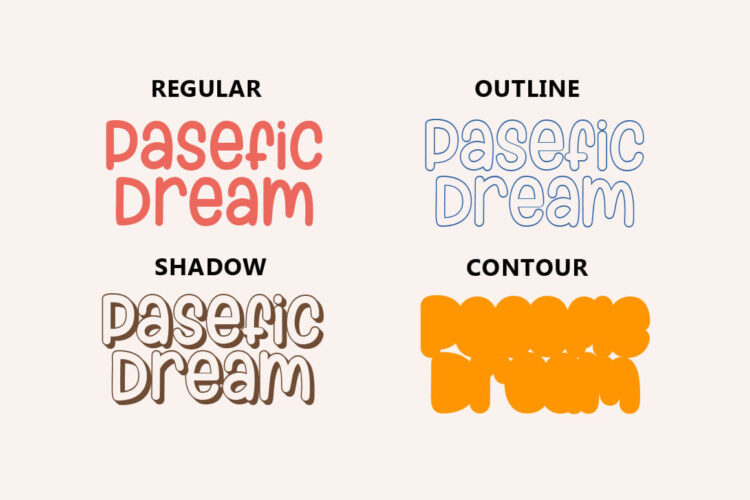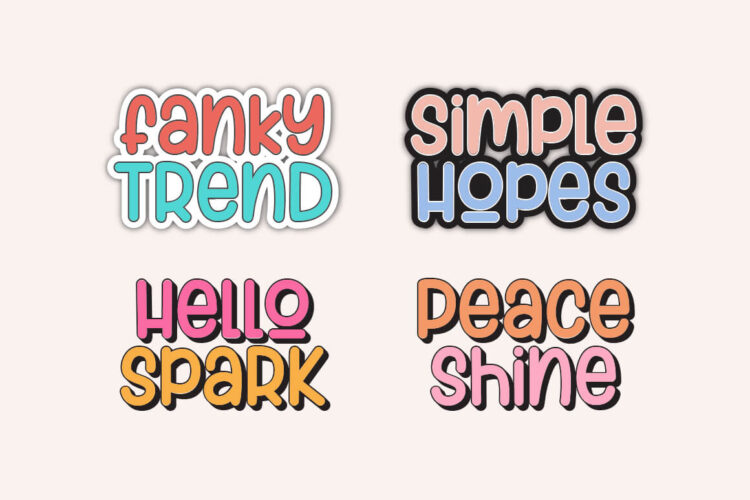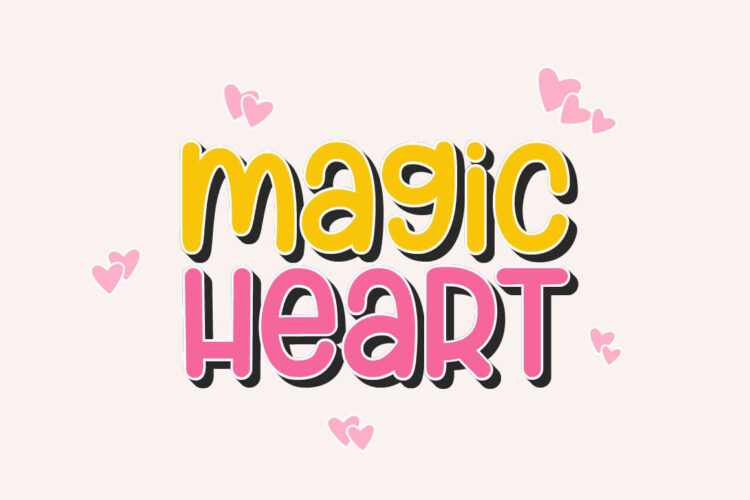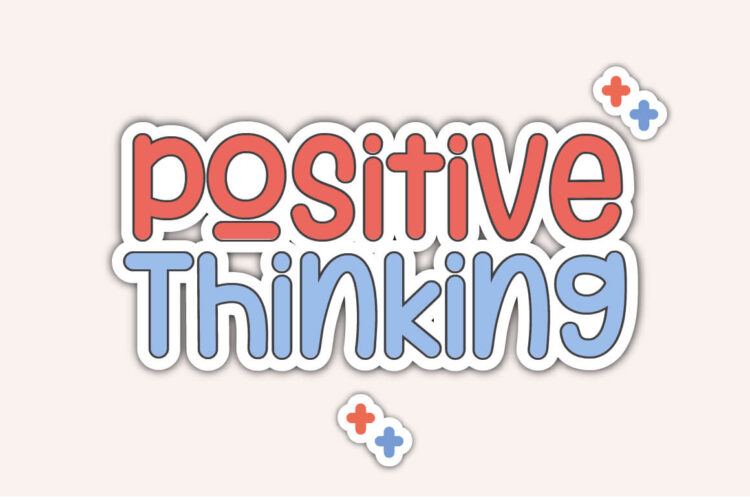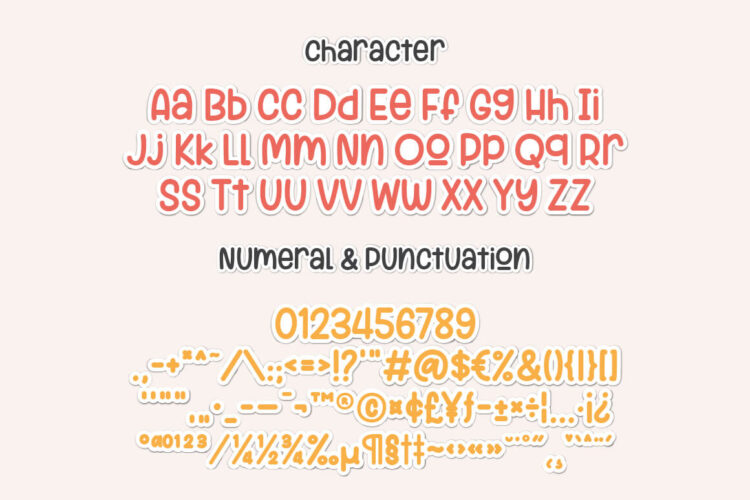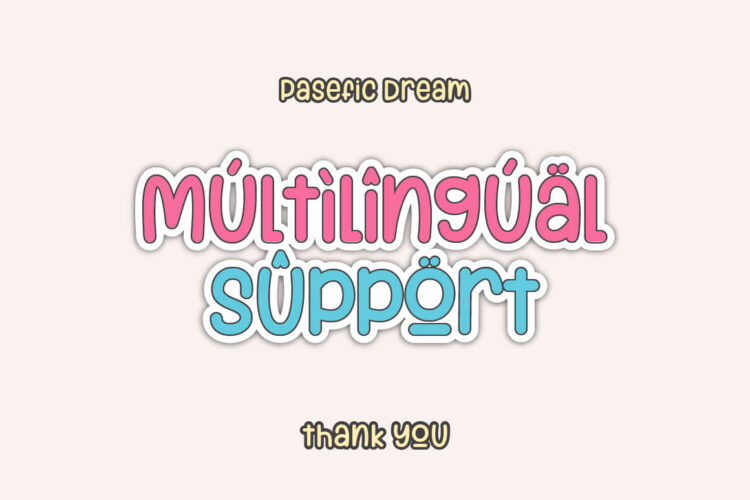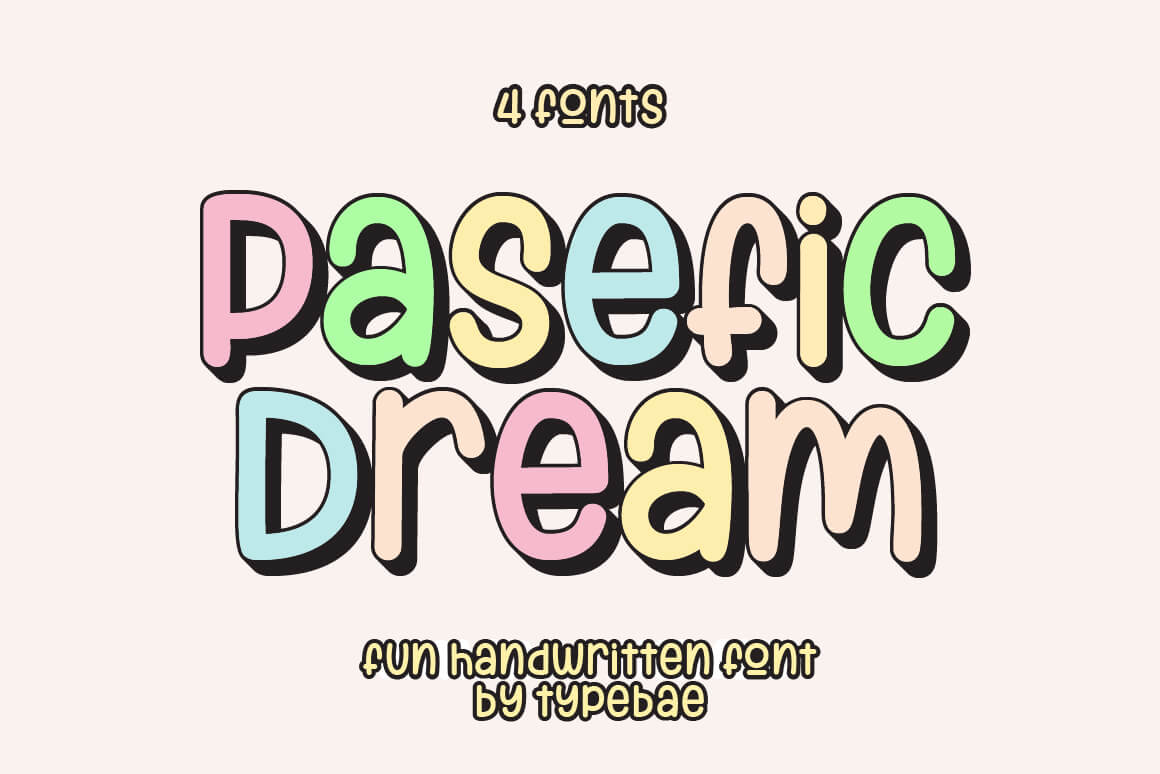
Pasefic Dream is a fun and whimsical font. It has a playful and quirky touch, allowing for a delightful and amusing feel. Both uppercase and lowercase letters can be combined to enhance the cuteness.
Pasefic Dream is well-suited for designs that are fun and lighthearted, such as school-related designs, birthday invitations, summer-themed designs, holiday projects, t-shirt designs, crafts, stickers, sublimation, and much more.
Feature: Alphabet, Numeral, Punctuation, PUA Encode, Multilingual